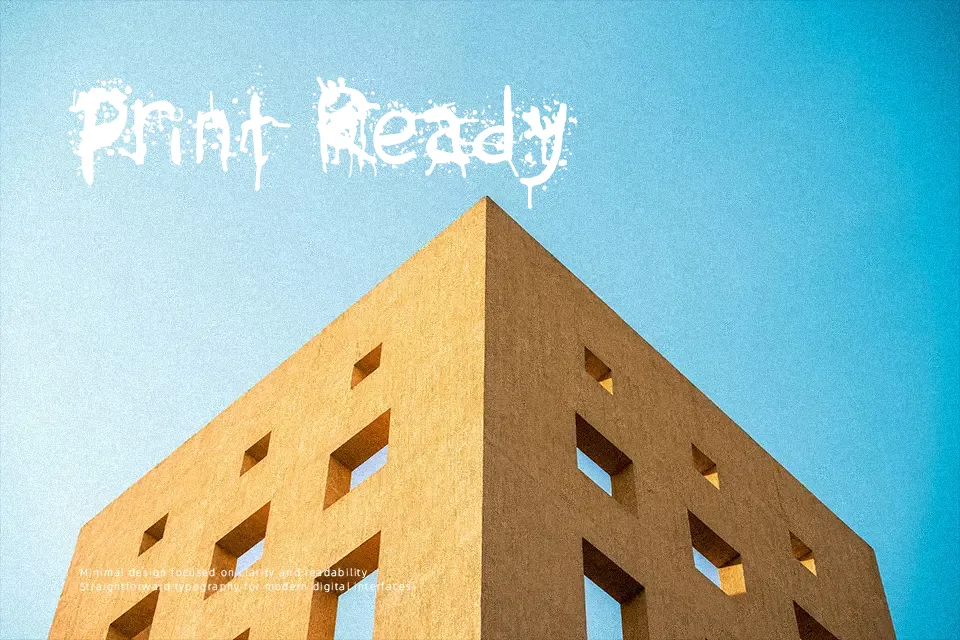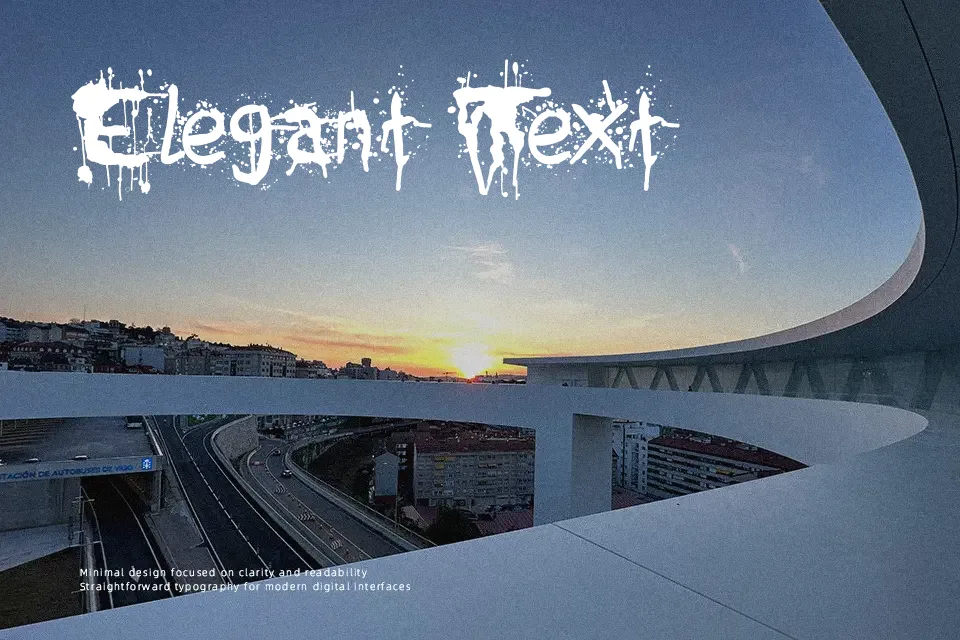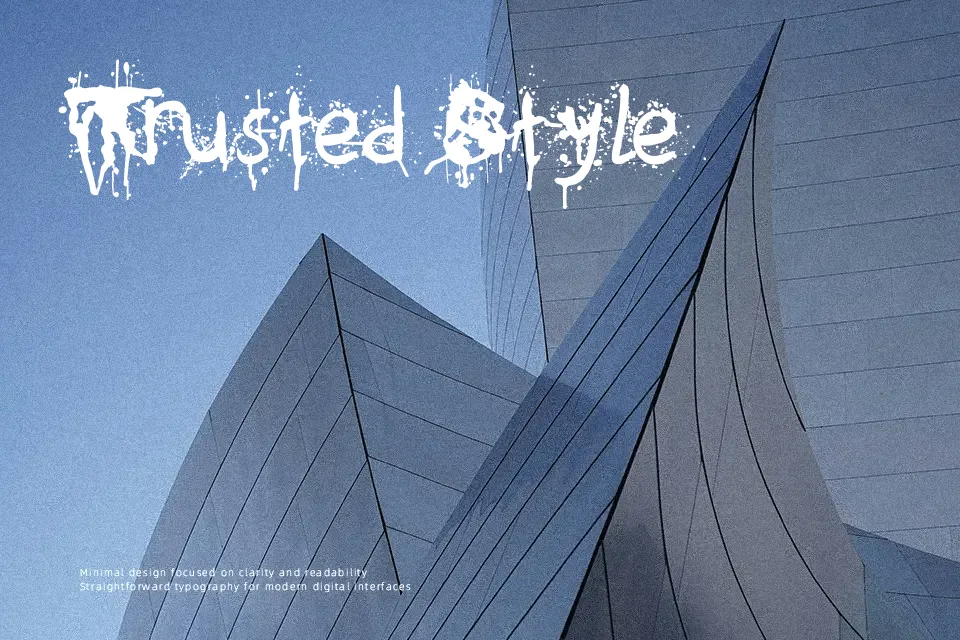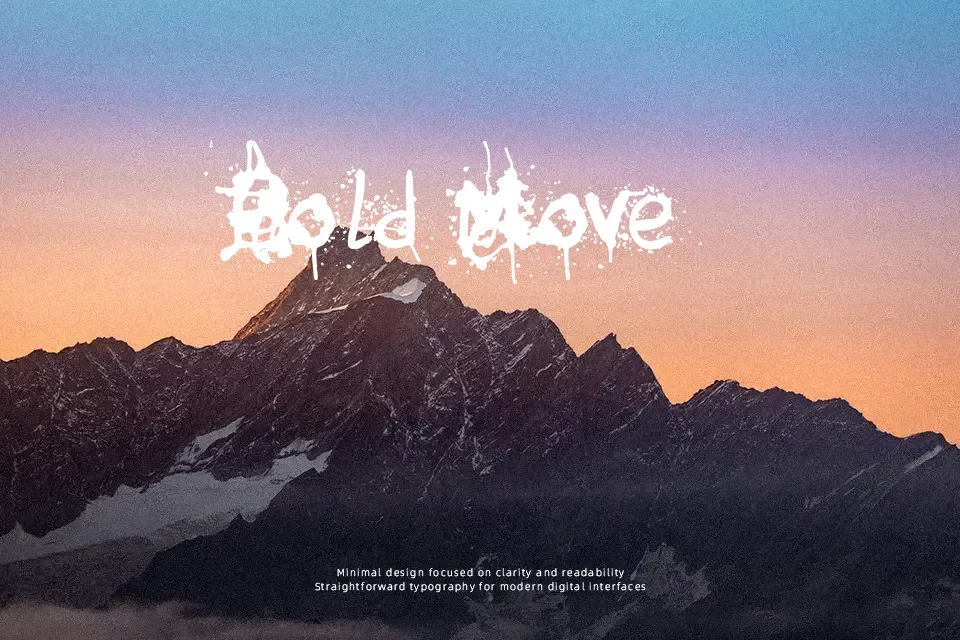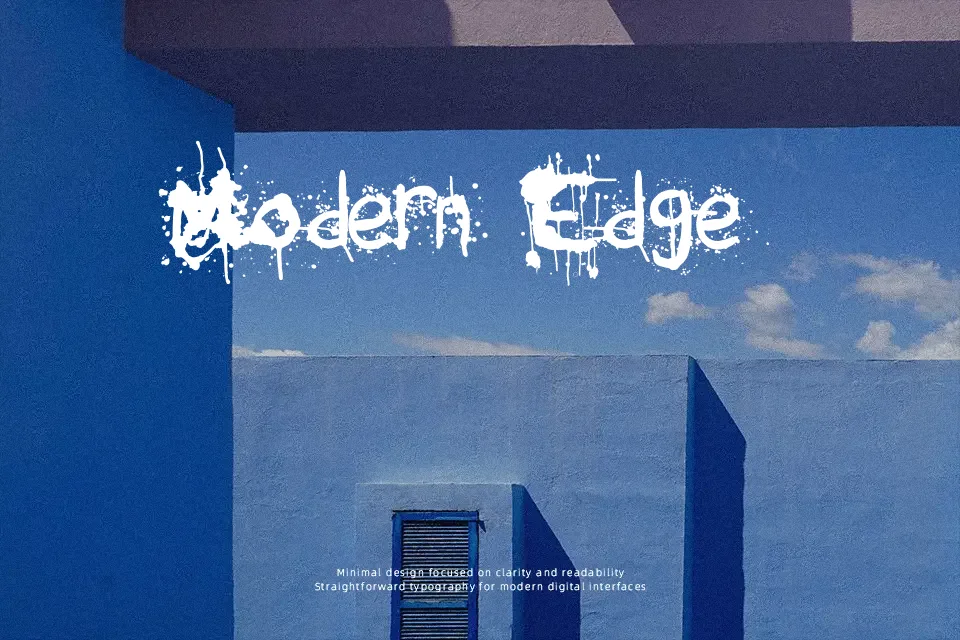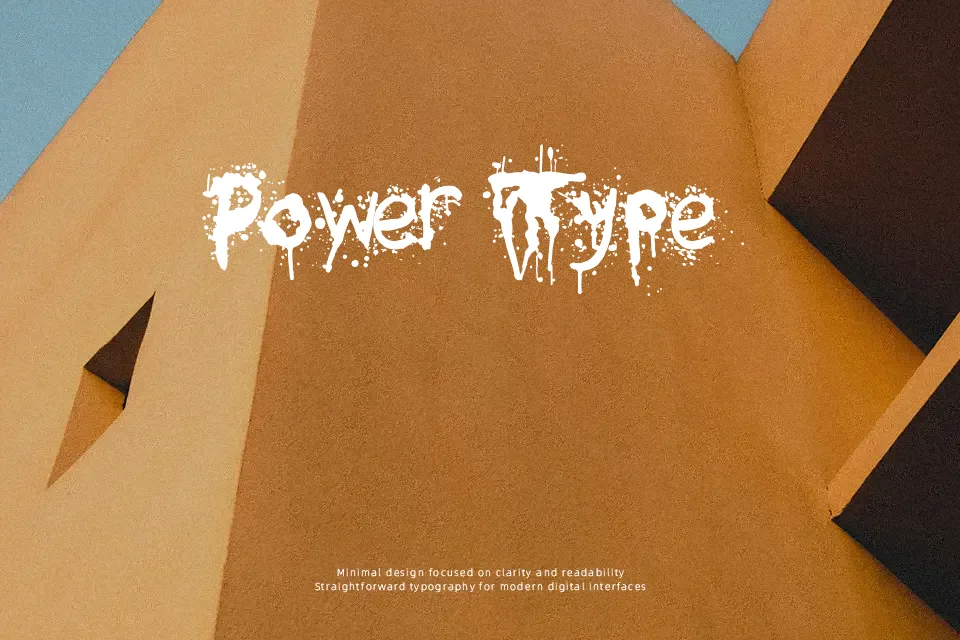
Tumult Font
Designed by Sharvanna Kenny
Tumult Font opens with an erratic display aesthetic shaped by waterborne ink bleeds, frayed silhouettes, and dripping contours. The typeface exhibits uneven proportions across glyphs, pairing broad, chaotic capitals with more compact minuscules. Its stroke style relies on heavy blotches encircled by fine speckled droplets, while open character spacing keeps adjacent forms from merging into illegible pools. Legibility shifts markedly across sizes; the design delivers striking visual punch in theatrical posters and spooky event branding, but fine internal counters fill in quickly. Consequently, the letterforms remain impractical for continuous reading or dense editorial paragraphs.
Best For: horror film title sequences, halloween event flyers, dark fantasy book covers
Not Ideal For: long body paragraphs, mobile interface text, corporate annual reports
Perfect for film, halloween, and headline, with a dark and decorative style.